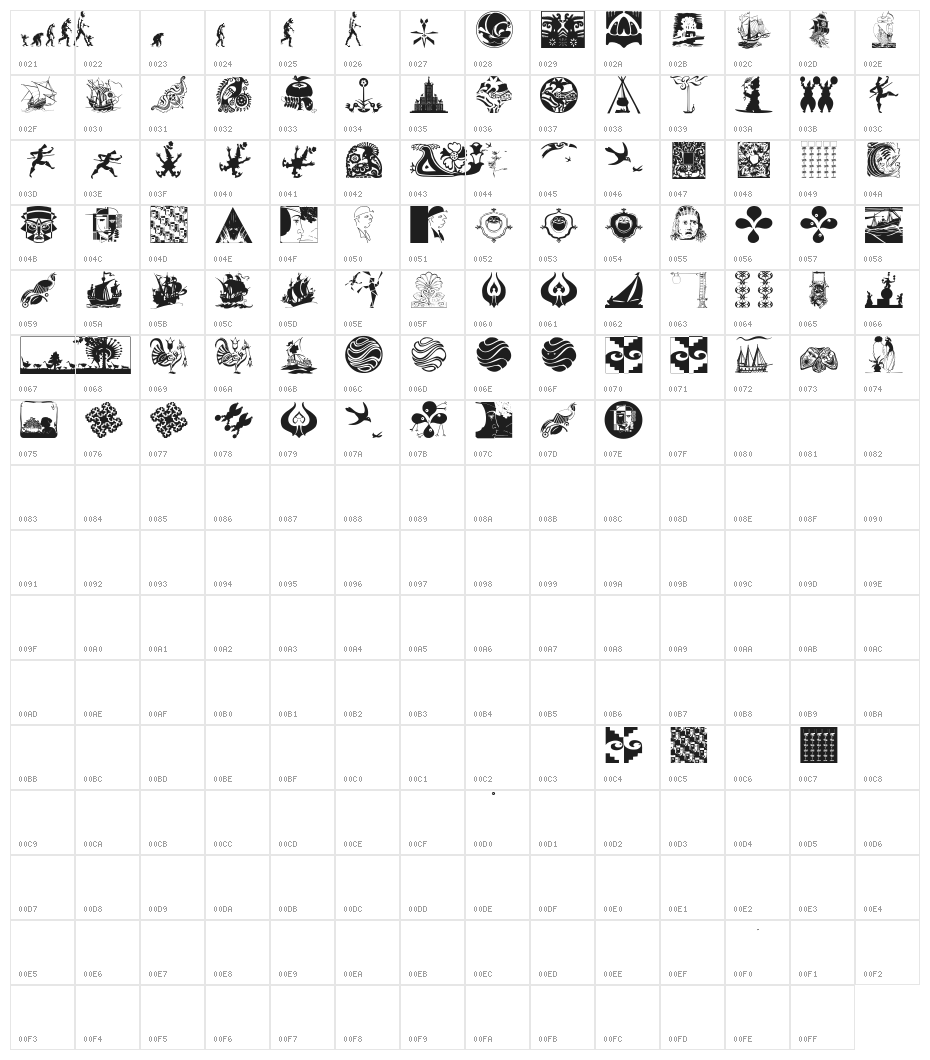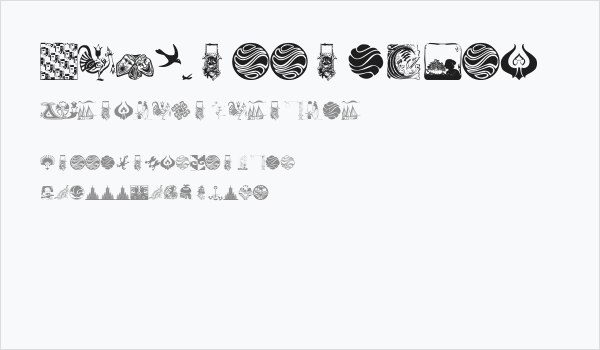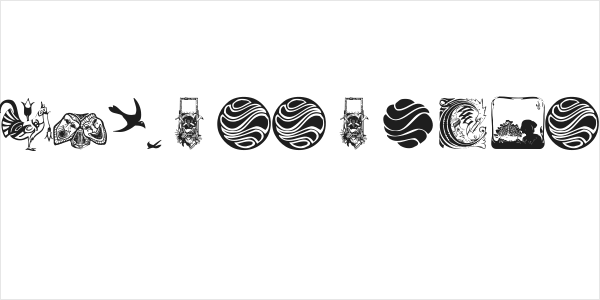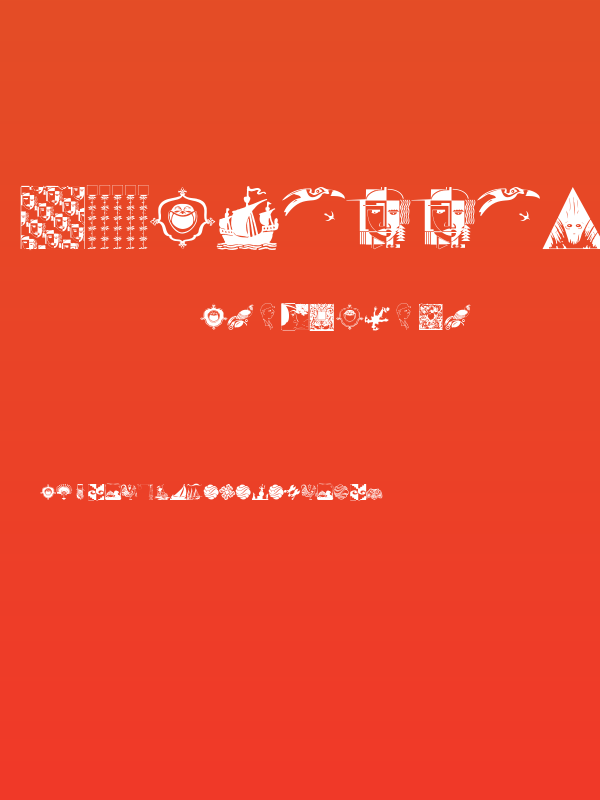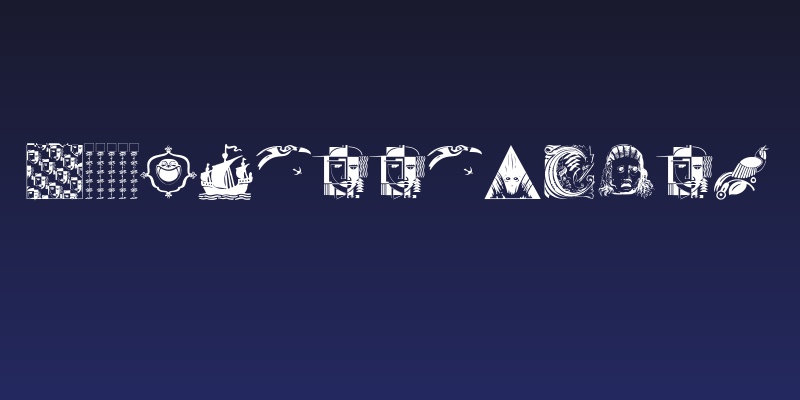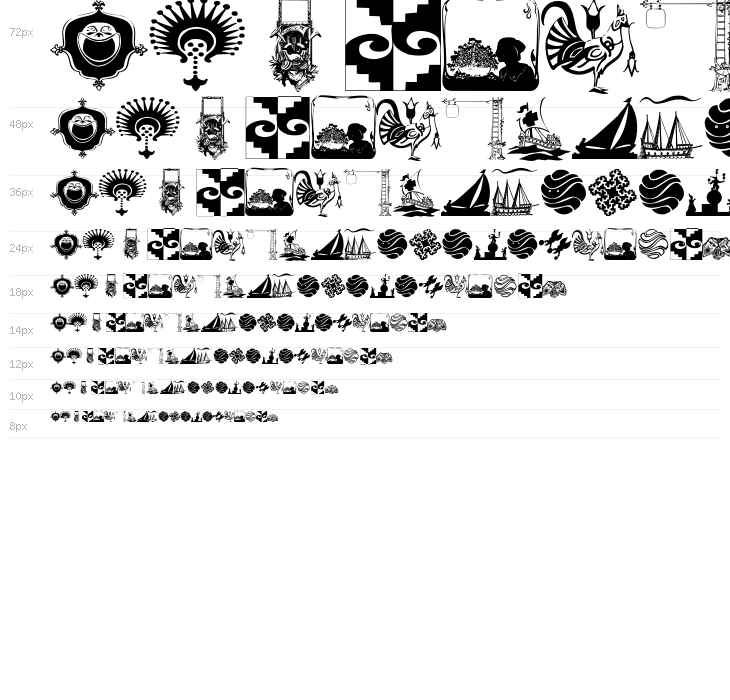
MiszellenJuly Font
MiszellenJuly Description
A highly decorative dingbat and pictogram font featuring a wide variety of intricate black-and-white illustrations, including ships, animals, abstract patterns, human figures, and ornamental motifs. Each glyph is a unique image rather than a traditional letterform, with strong contrast and detailed linework.
| Overall Style | Decorative, Ornamental, Eclectic |
| Use Case | Decorative elements, Borders, Illustrative accents, Themed graphics |
| Proposed Projects | Book embellishments, invitations, scrapbooking, themed posters, educational materials, decorative borders, and creative design projects. |